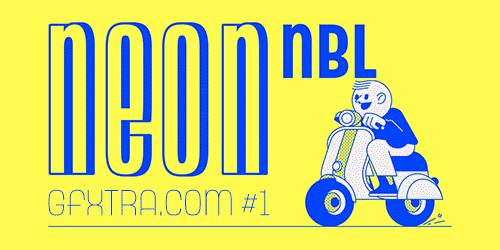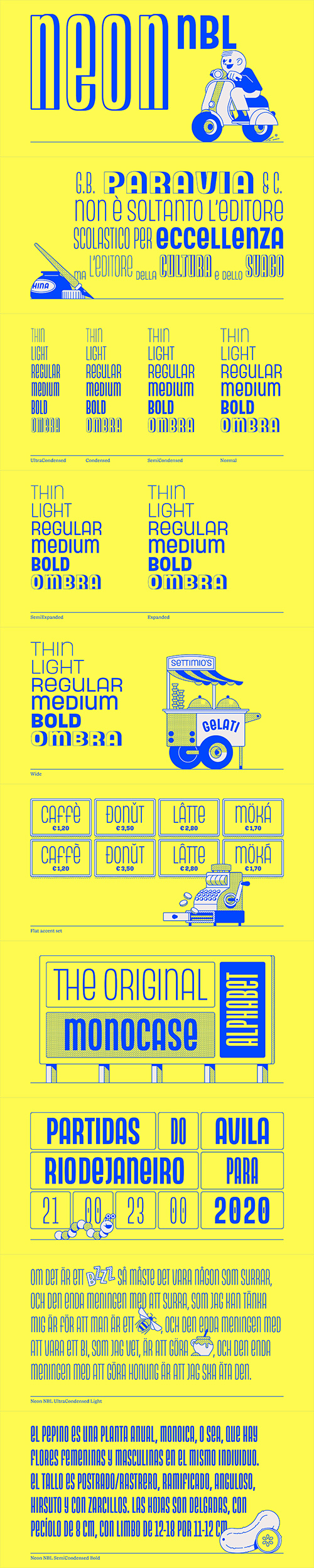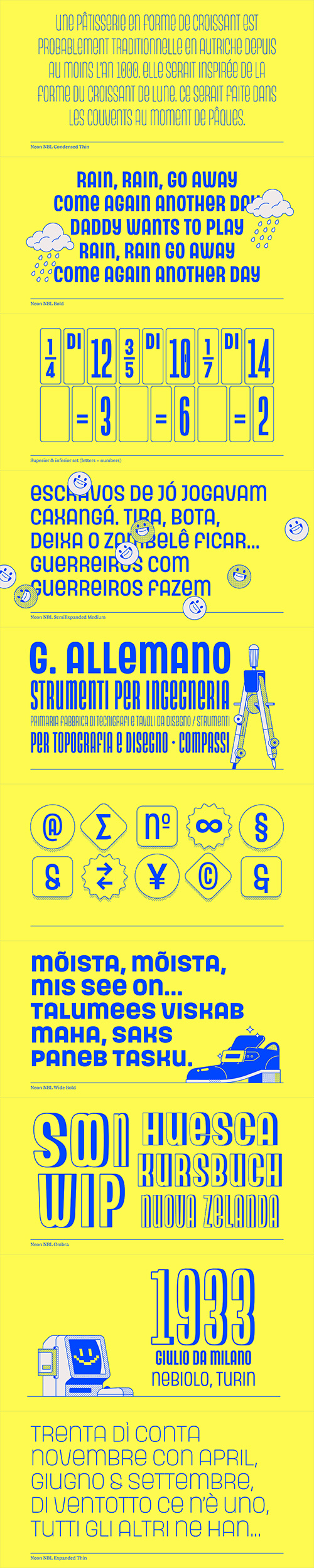
- Neon NBL is the faithful digital redesign of the original geometric monocase sans designed by Nebiolo in 1933. The redesign follows the proportions of the 1930s design, with varying widths for each type size, and includes the shaded titling version Ombra. Working at is best for headlines, posters, and logos, thanks to its range of styles and weights, it can suit small text settings as well.